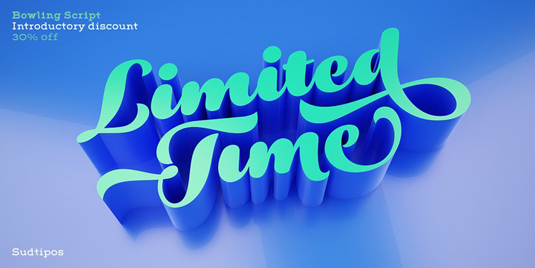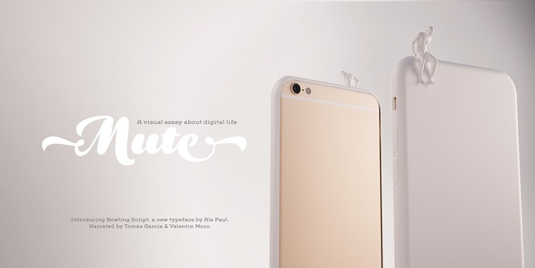
Font of the day: Bowling Script
Every day we showcase the best fonts on the web. Today it's Bowling Script by Alejandro Paul.
Bowling Script by Alejandro Paul
Today's typeface of choice, Bowling Script, was created by designer Alejandro Paul. Inspired by the work Bentele, a lettering artist from early 1950's Germany, this eye-catching script font comes with 1600 characters and features extended Latin-based language support.